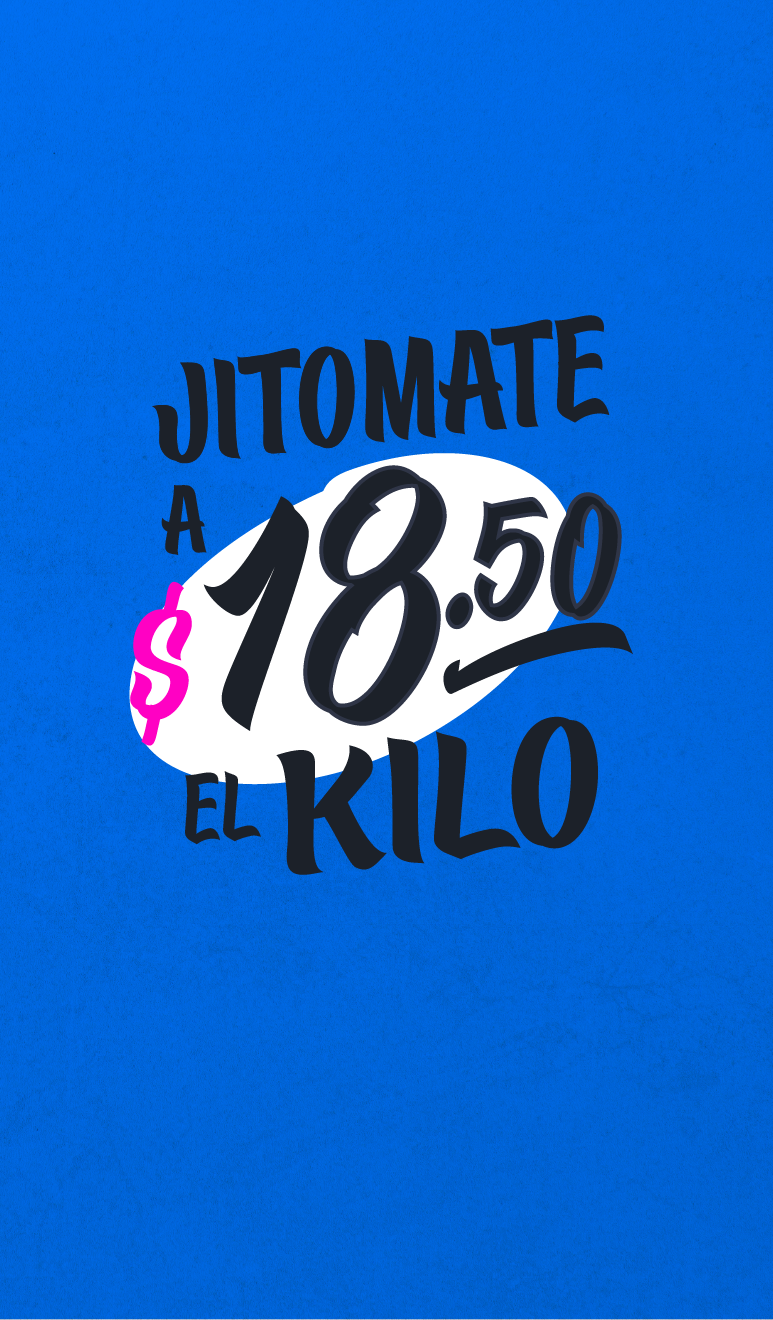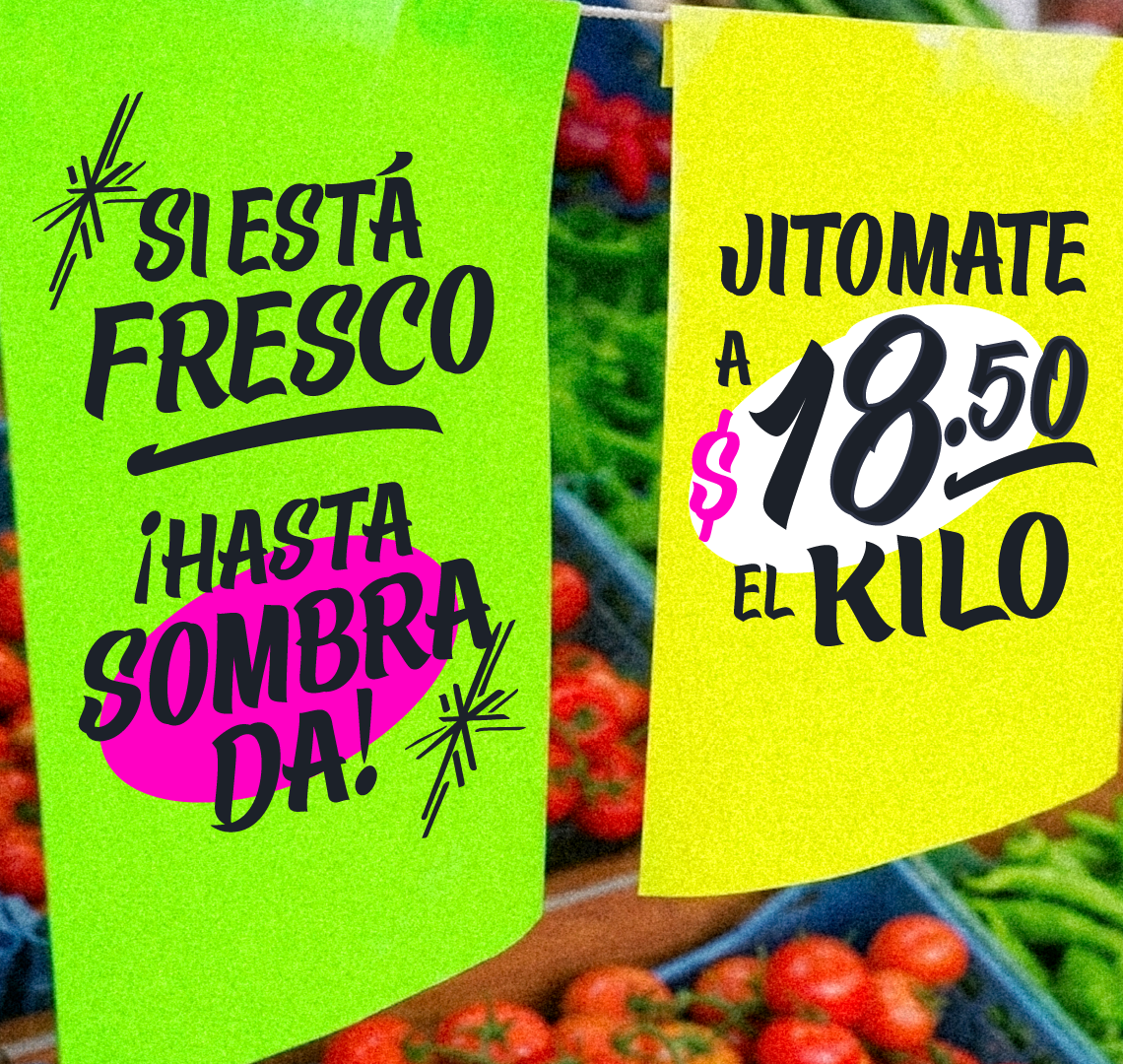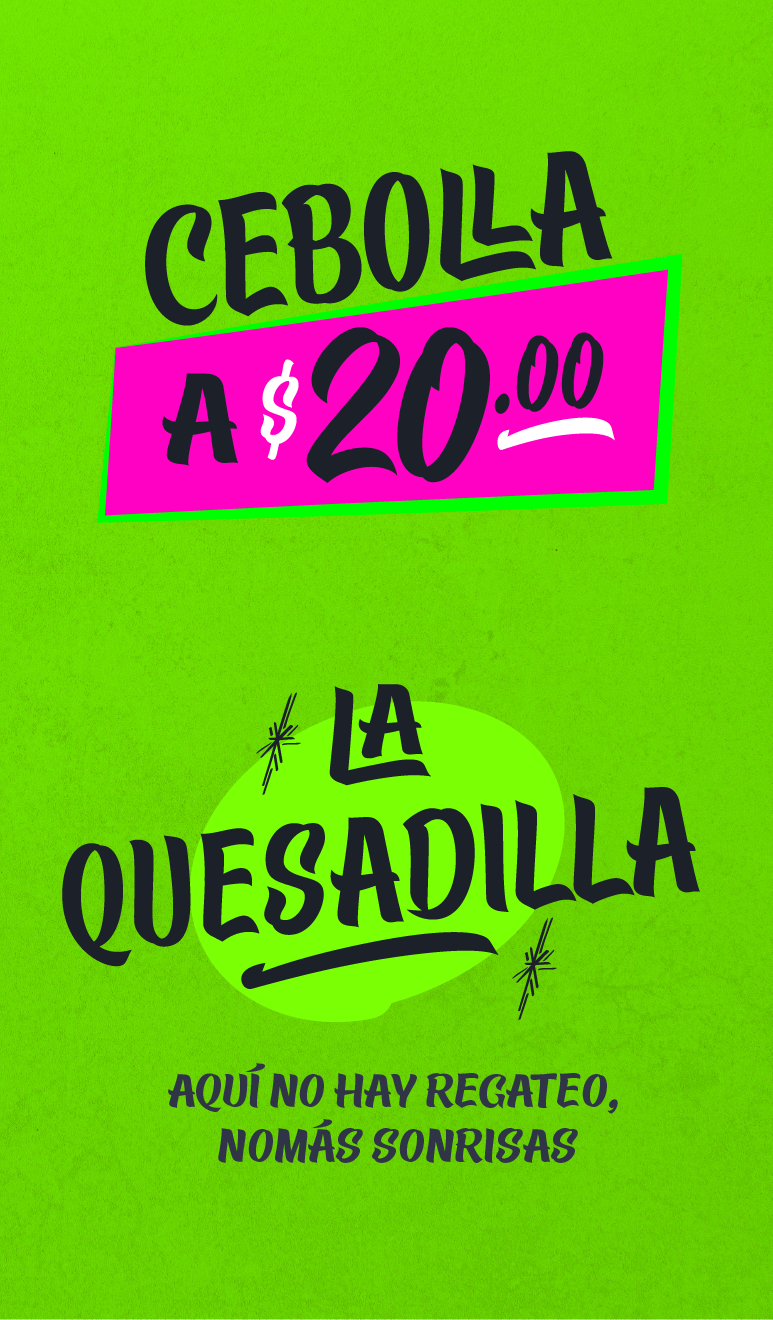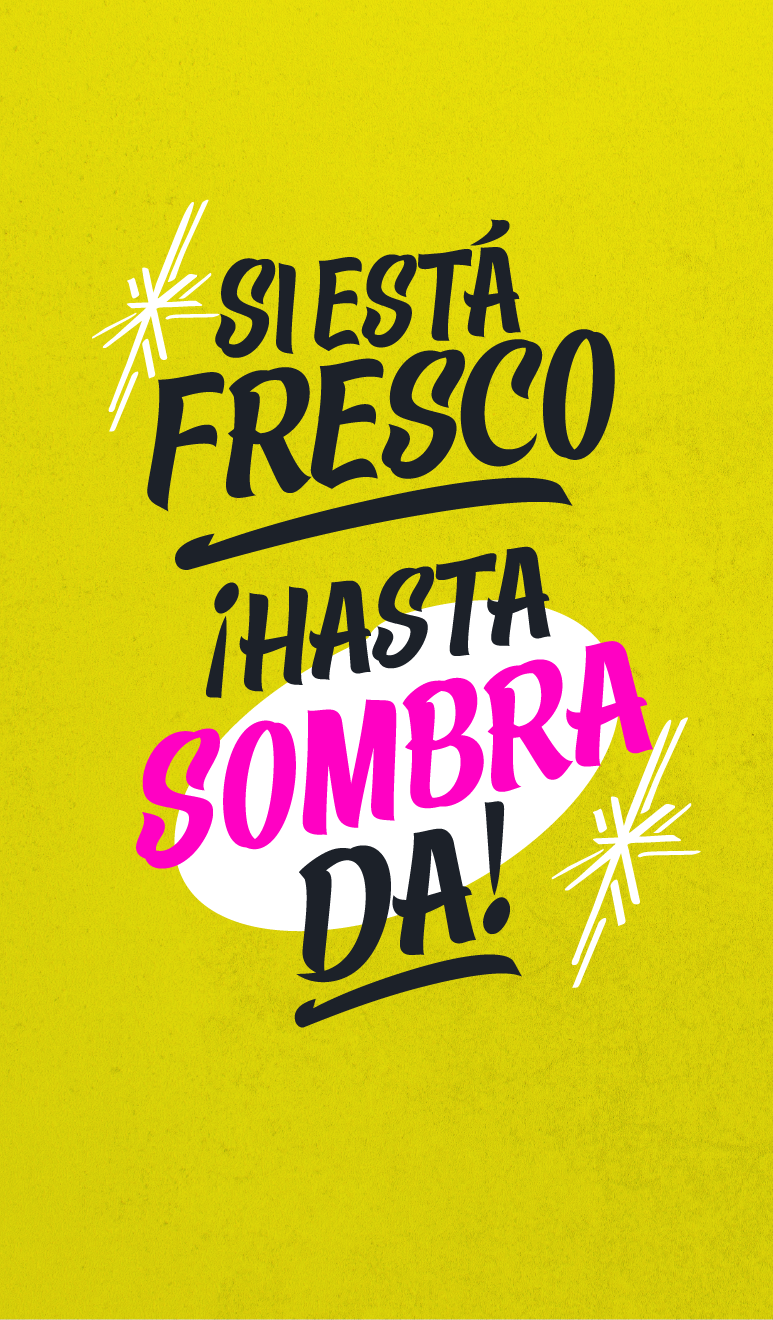
Custom typeface based on the vernacular lettering found on traditional tianguis signs in Mexico City. The initial character set comprises uppercase and lowercase letters, numerals, punctuation, diacritics, and a set of ornamental glyphs.